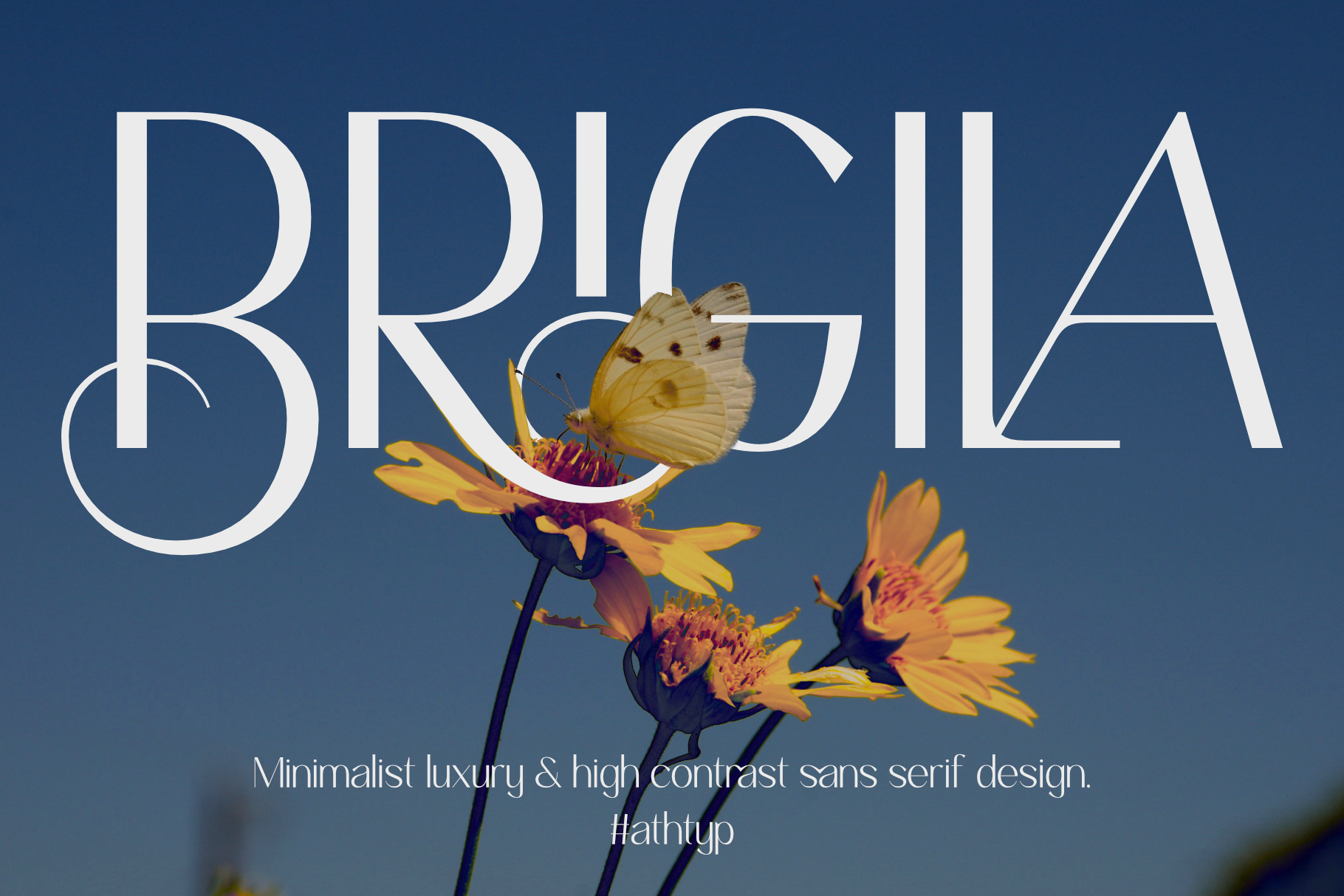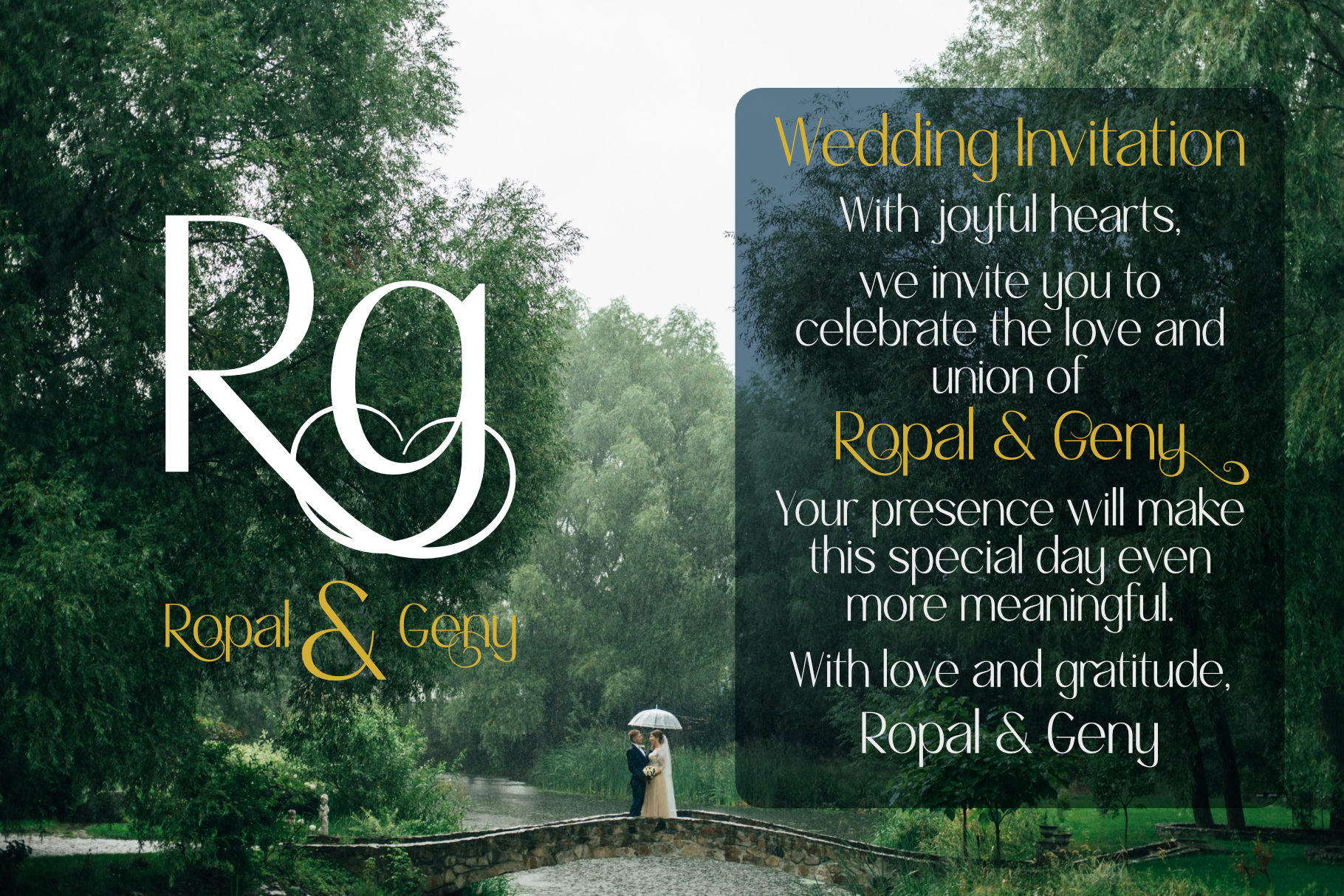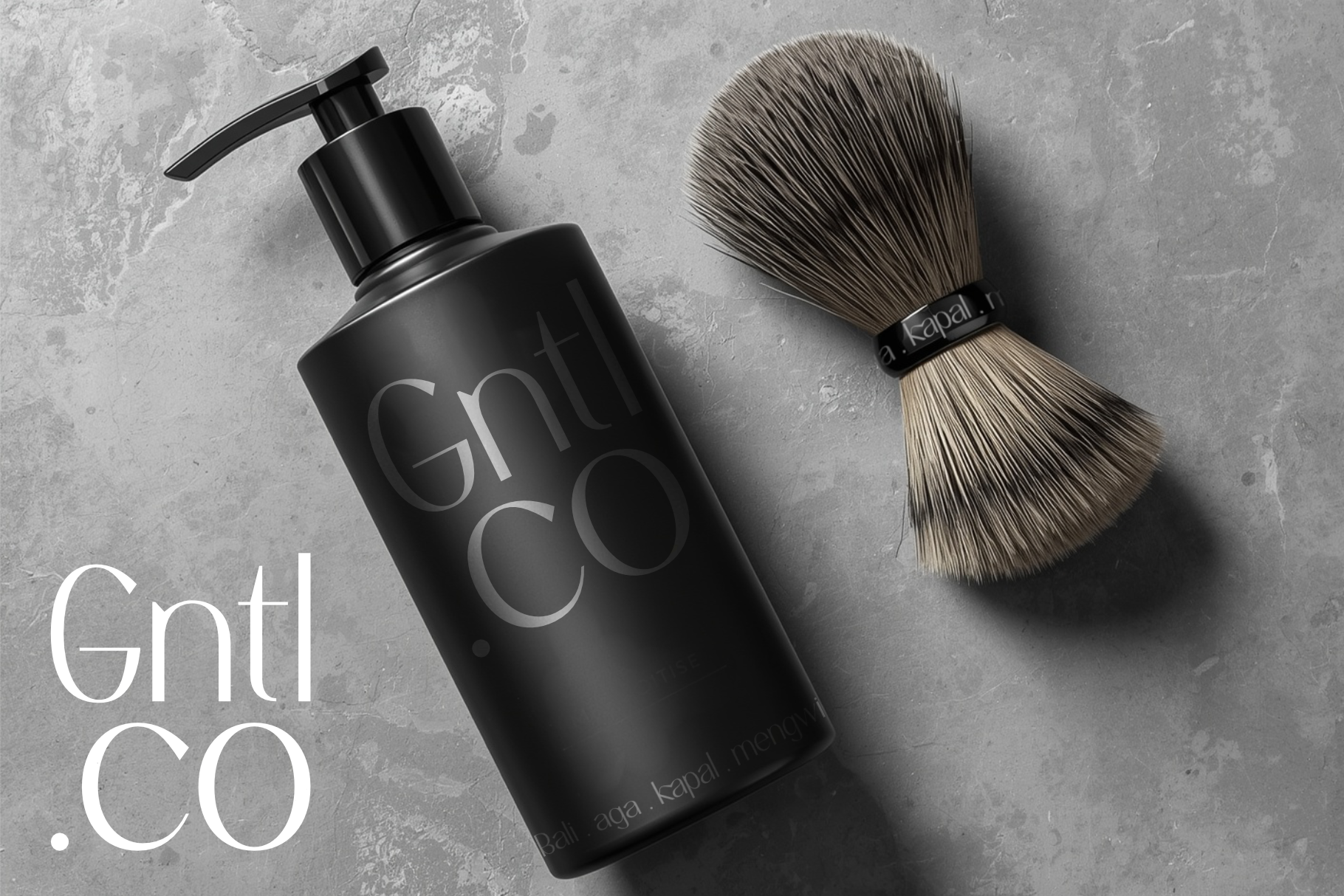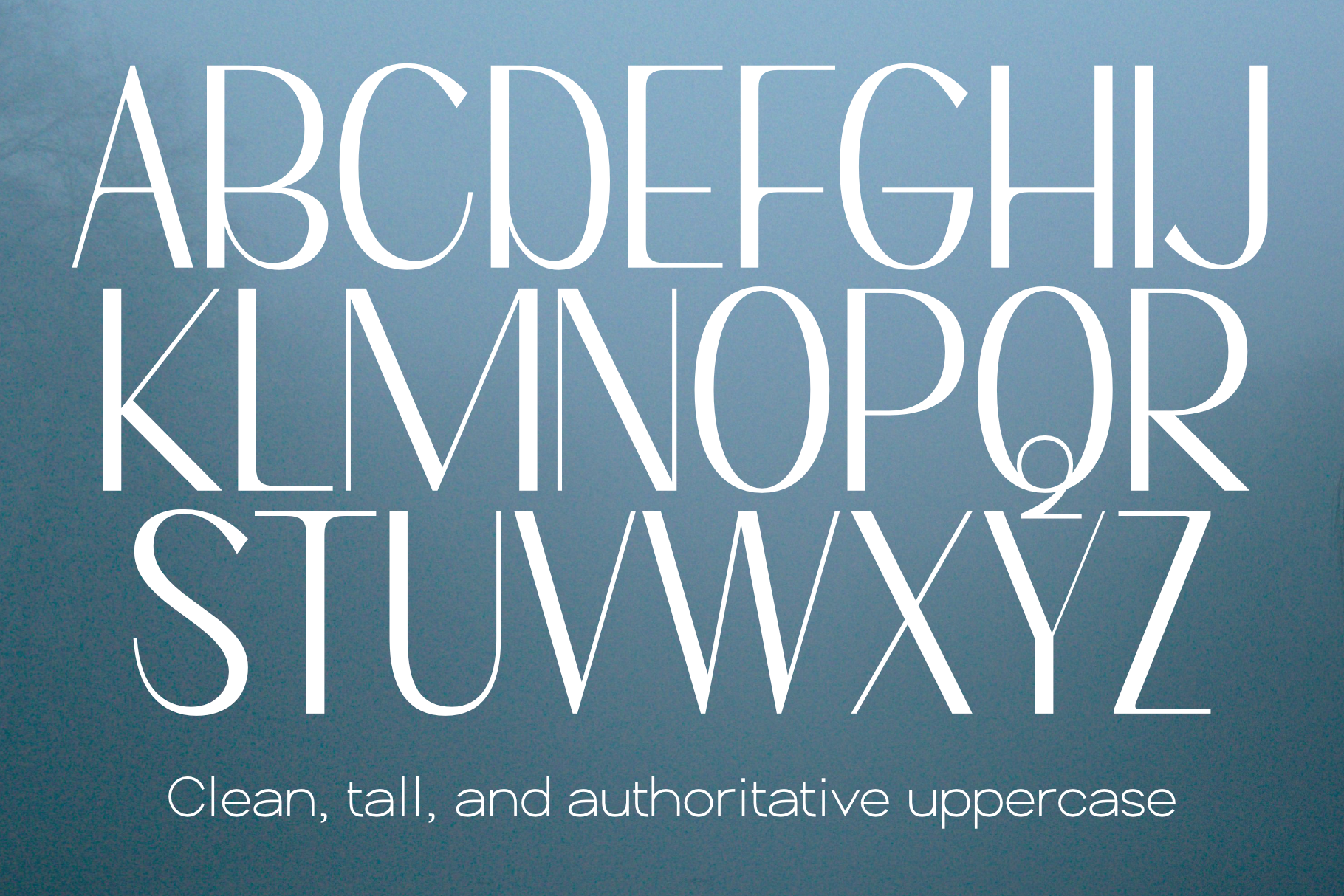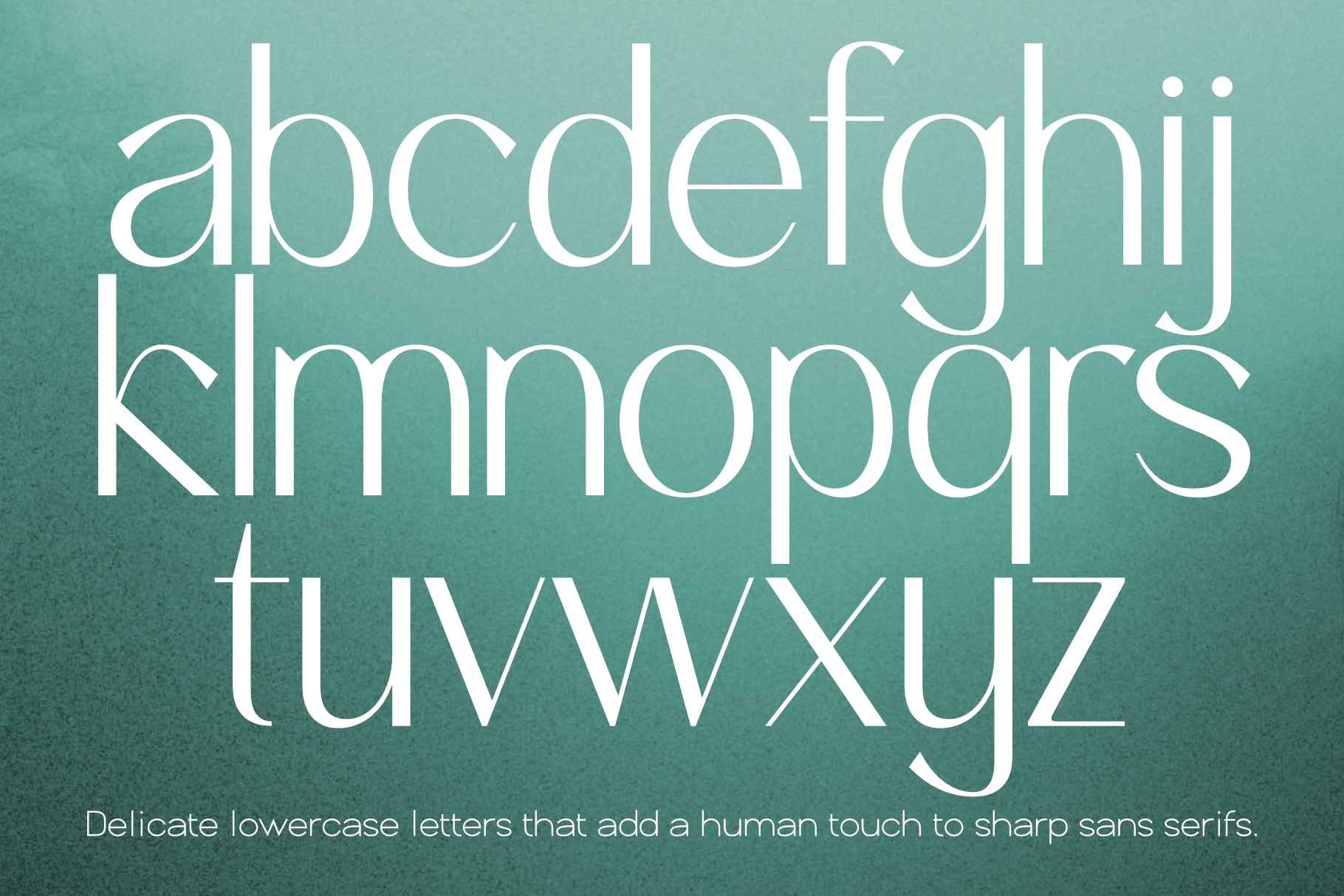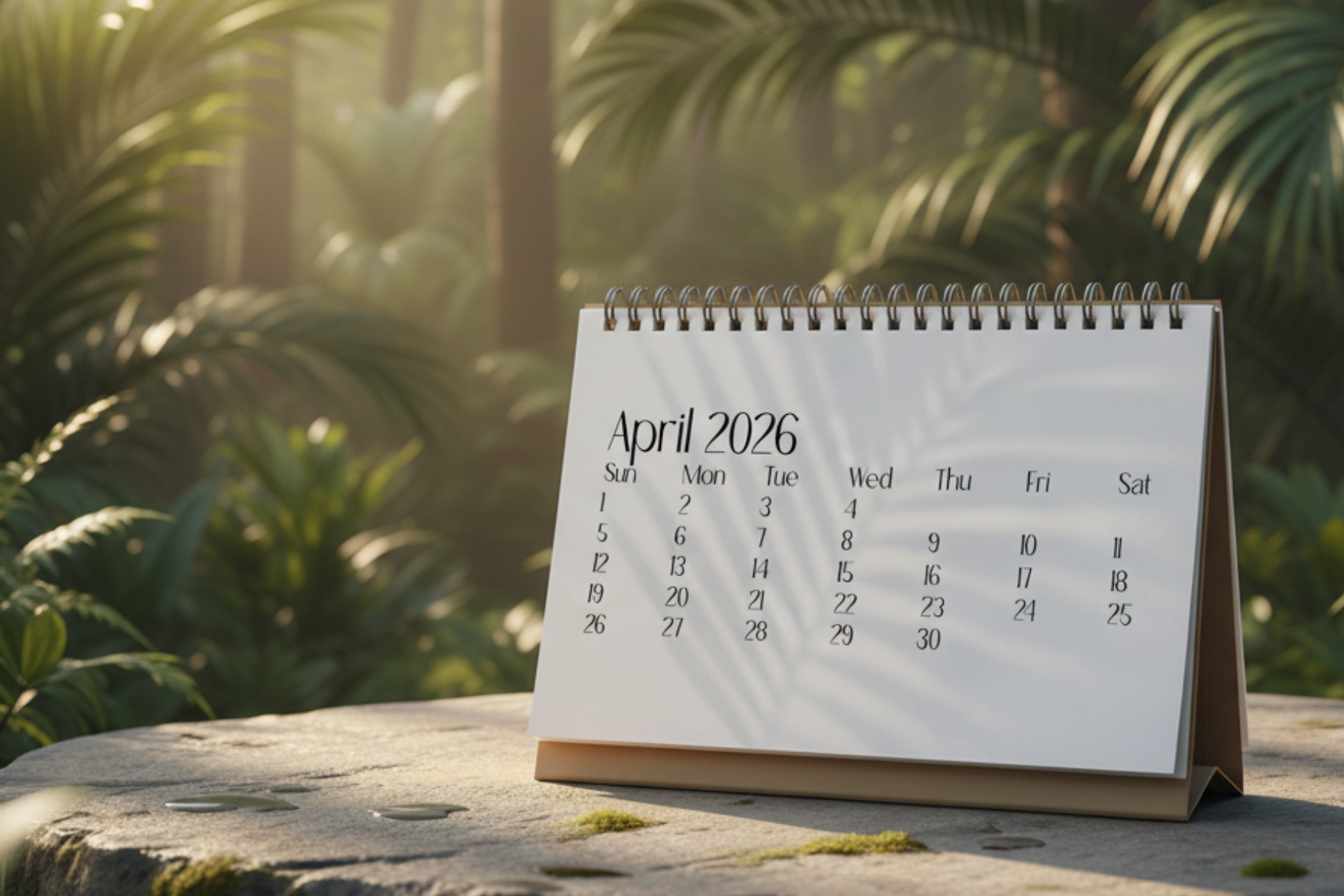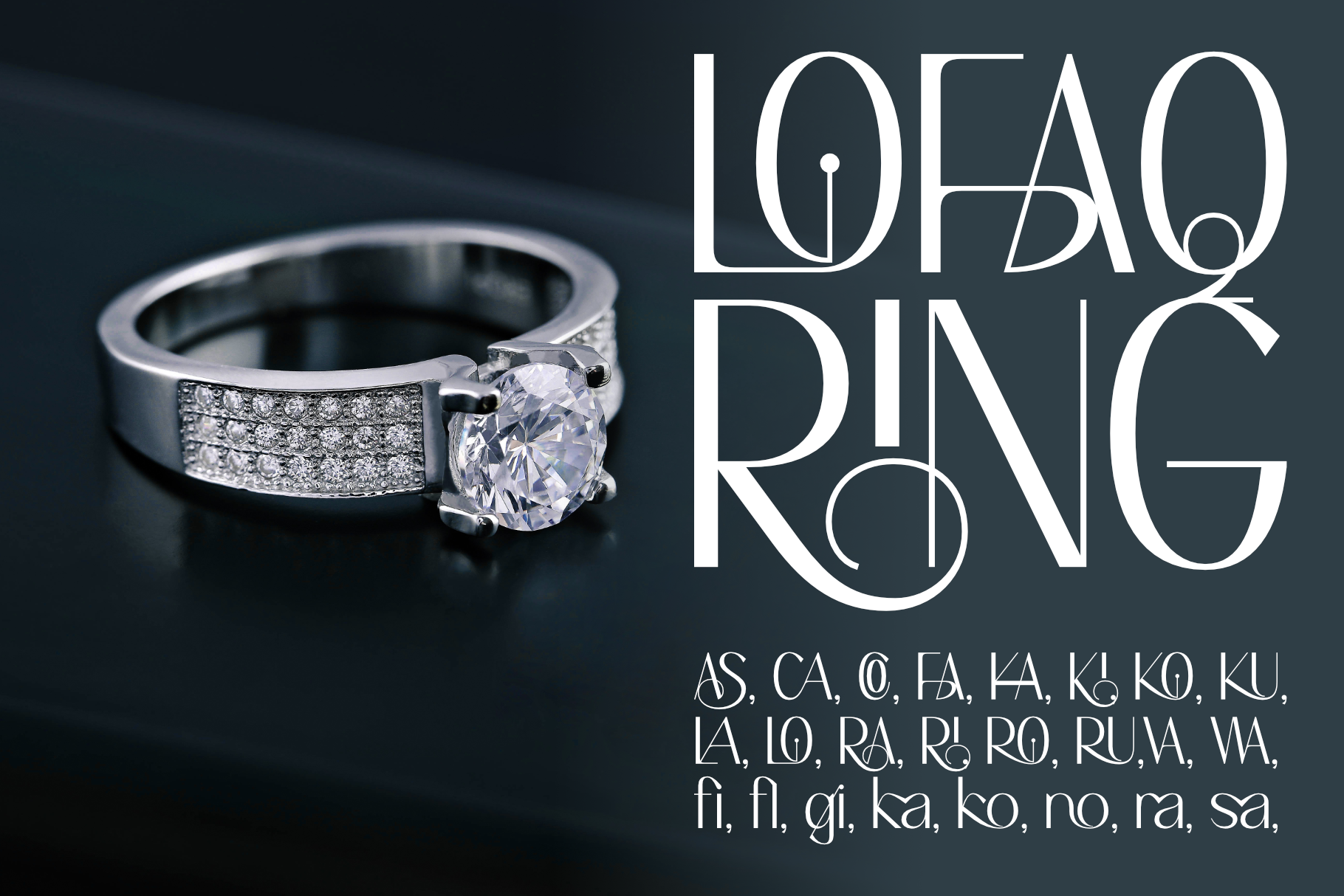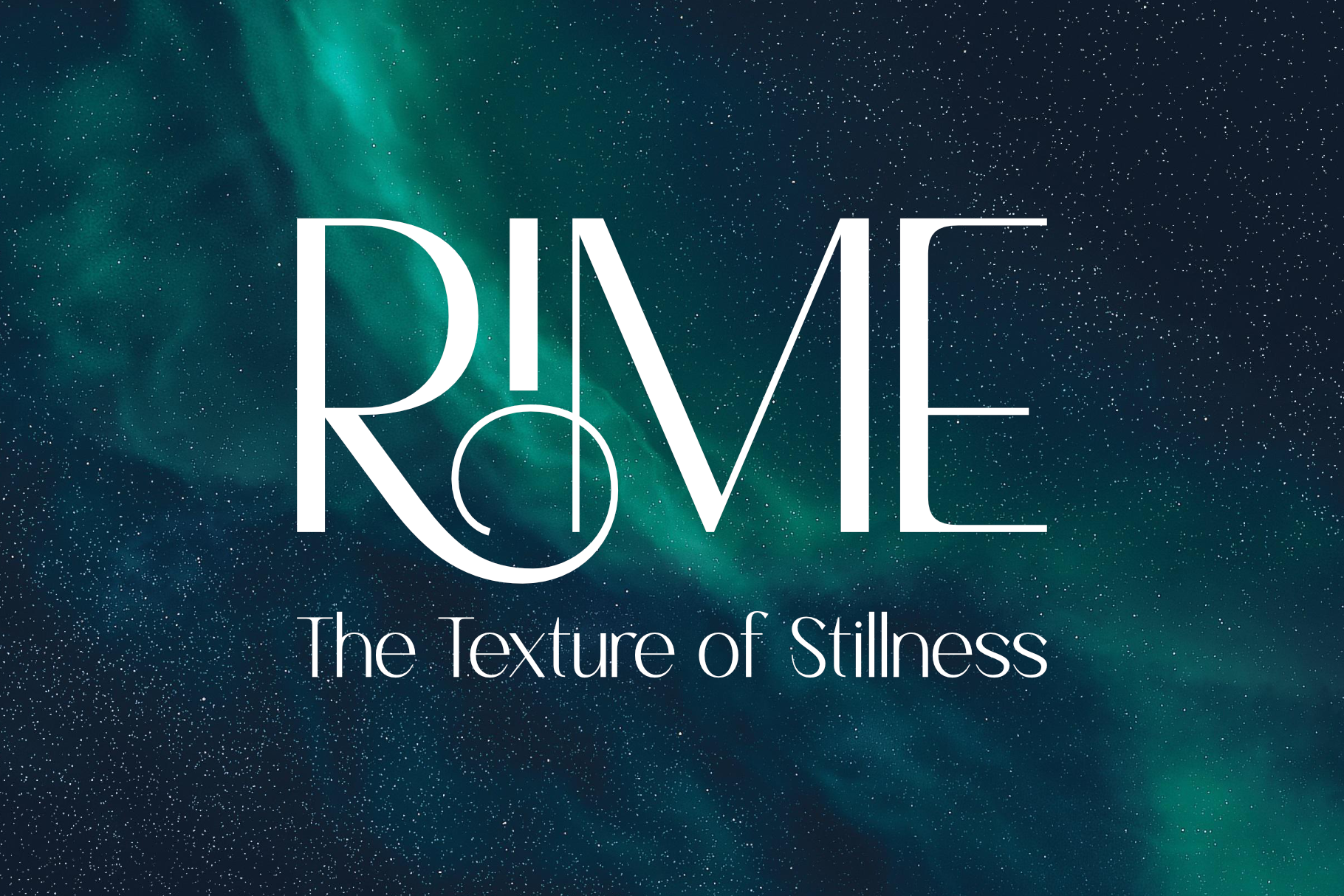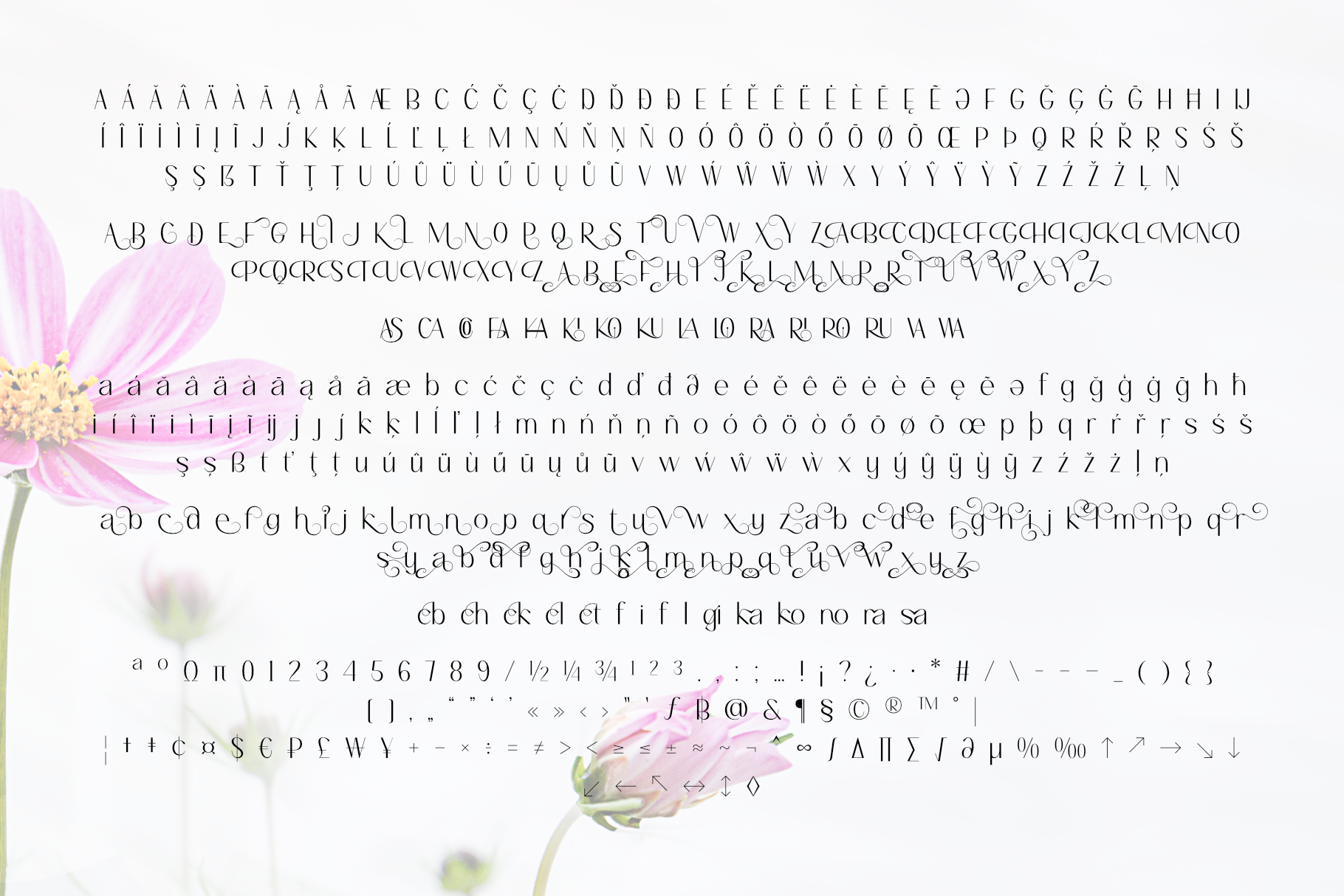
Brigila - A High Contrast Sans Serif
Brigila
The Brigila A HIGH CONTRAST SERIF Minimalist Luxury for Modern Design
Brigila represents the intersection of classical serif elegance and modern minimalist design. The typeface is characterized by extreme contrast, making it a perfect choice for display heavy environments like wedding stationery, jewelry branding, and high-end lifestyle magazines. What sets Brigila apart is its attention to ligature detail, common and uncommon character pairings have been redesigned to create a seamless visual flow. The result is a ‘textural rhythm’ that feels both intentional and effortless, providing designers with a sophisticated tool for creating premium visual identities.